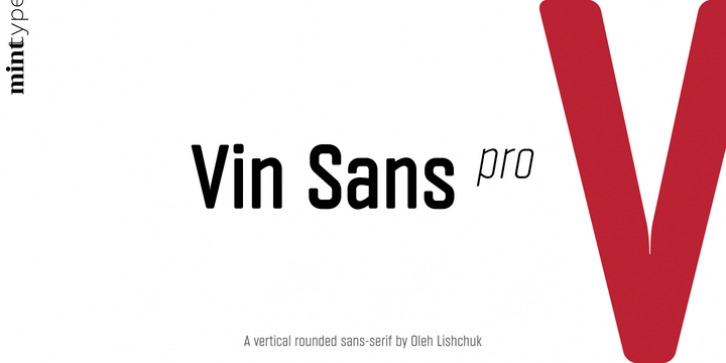
Publisher: Mint Type
Vin (translated from Ukrainian as "he") is a superfamily consisting of three distinctly masculine typefaces with pronounced vertical stems and rounded corners. All three typefaces feature very large x-height for even more expression and assertiveness.
Vin Sans Pro is a quite narrow rigid sans-serif typeface with extra-large x-height and rounded corners. It is perfect for any kind of short copy with lots of attention guaranteed.